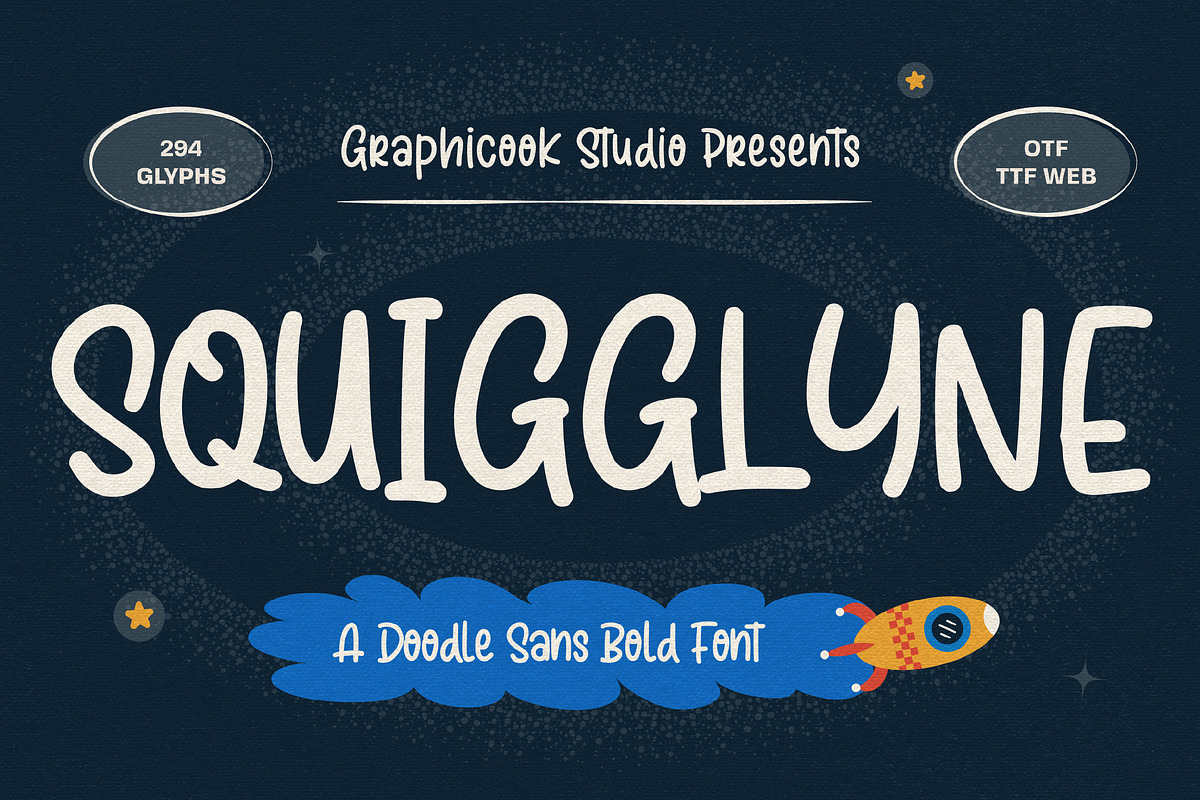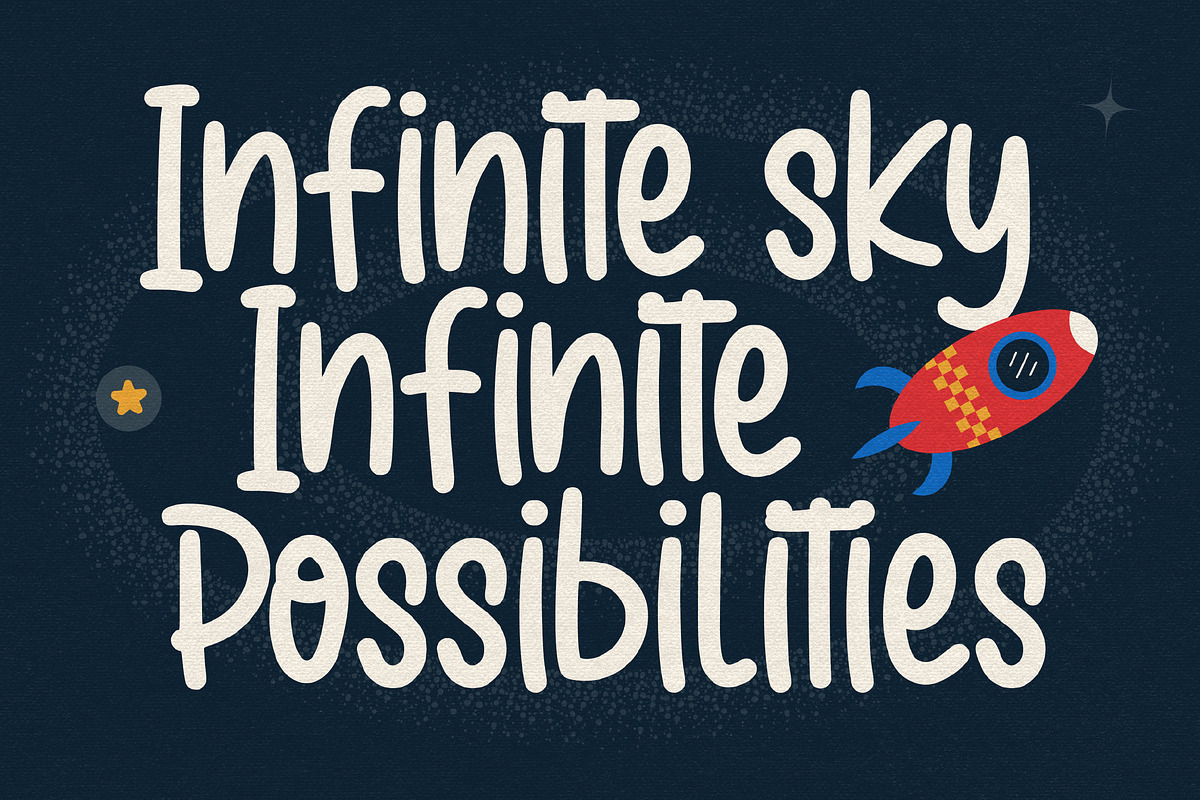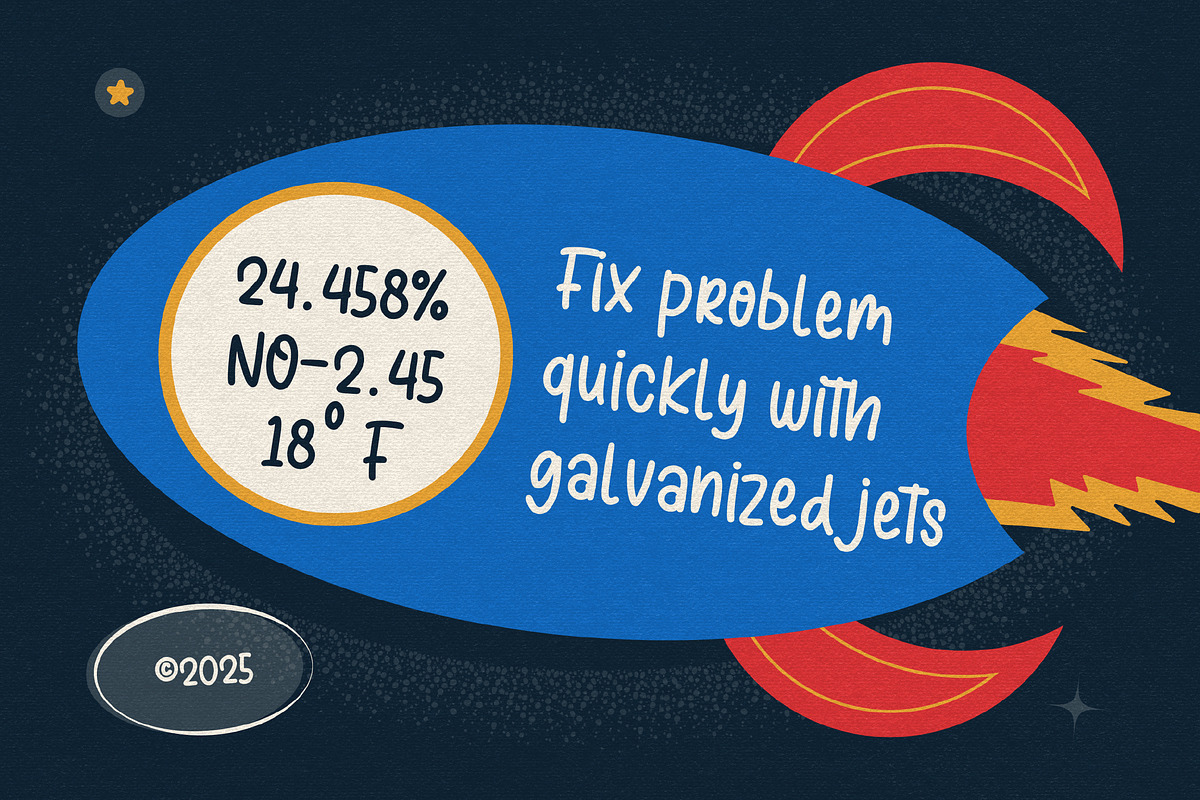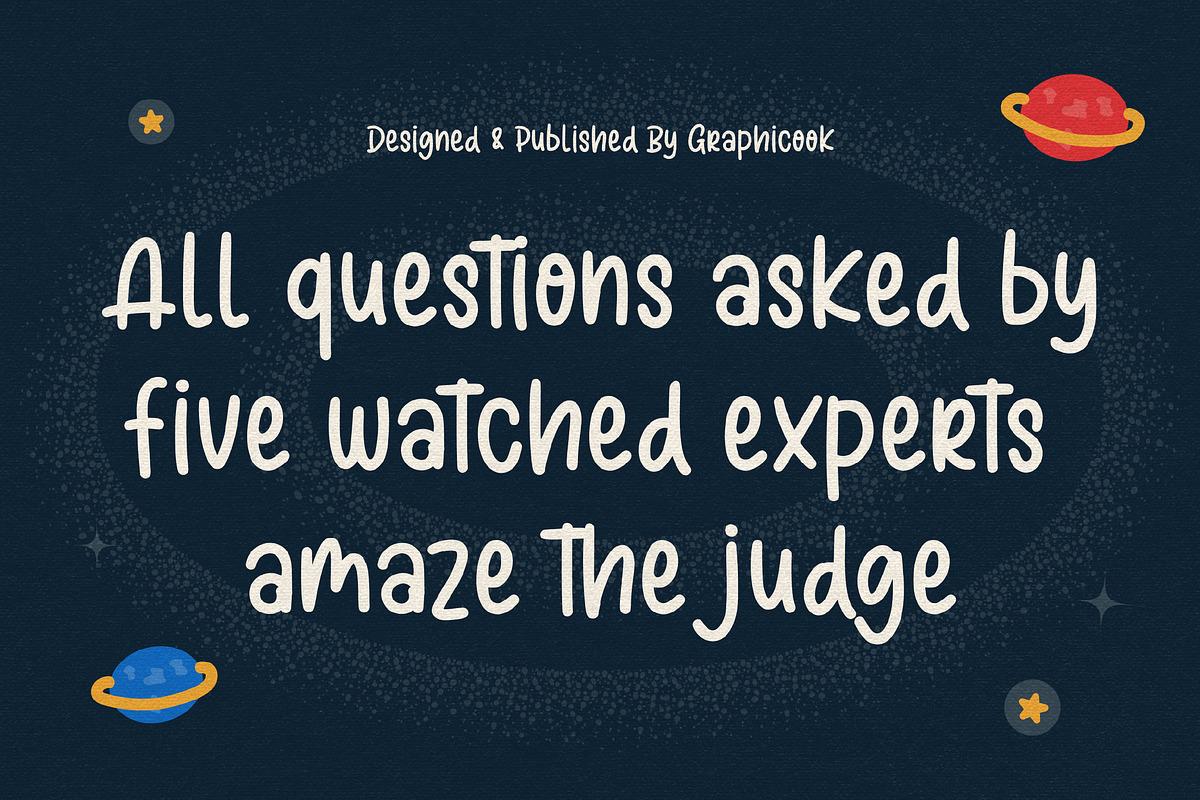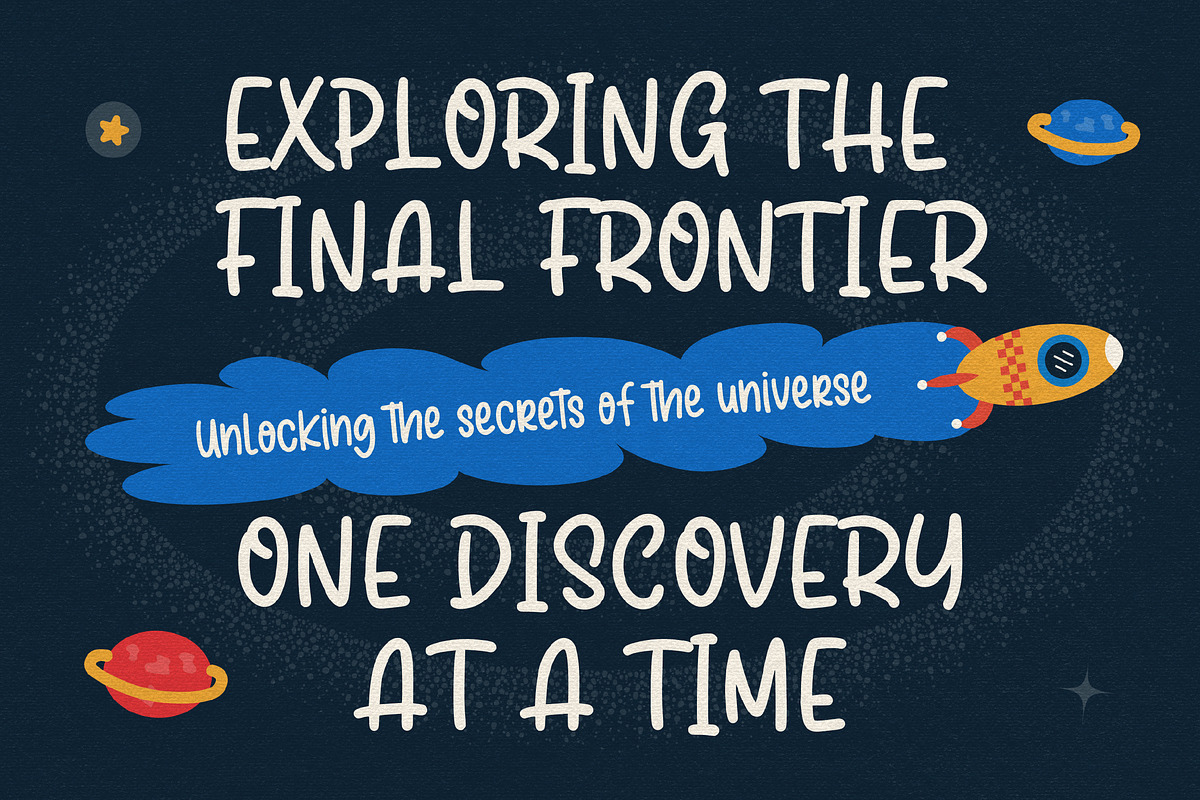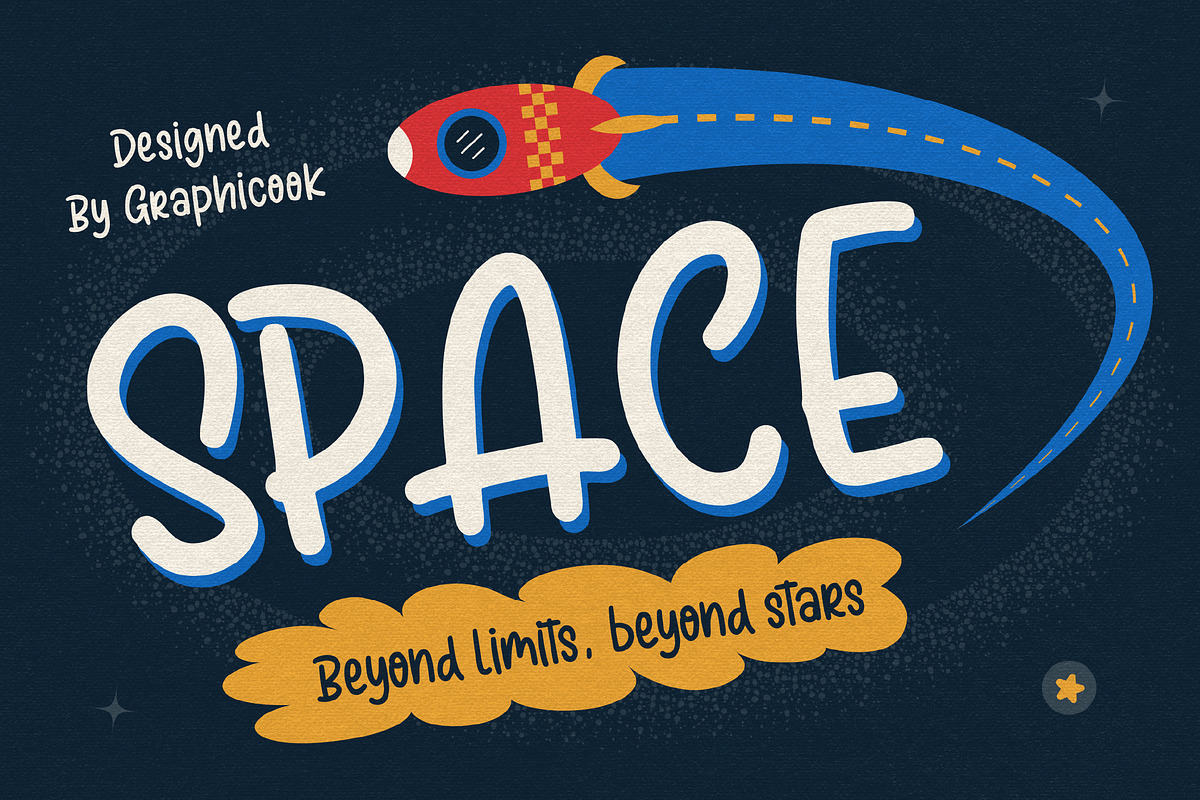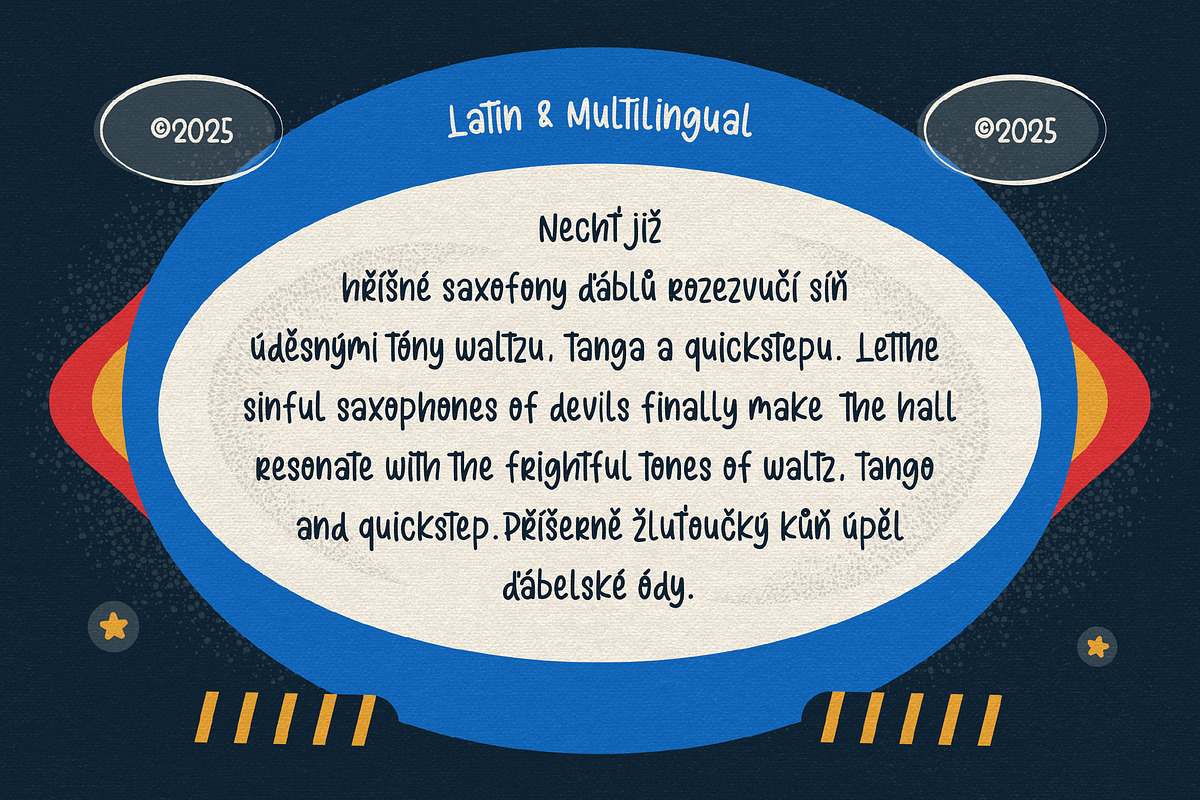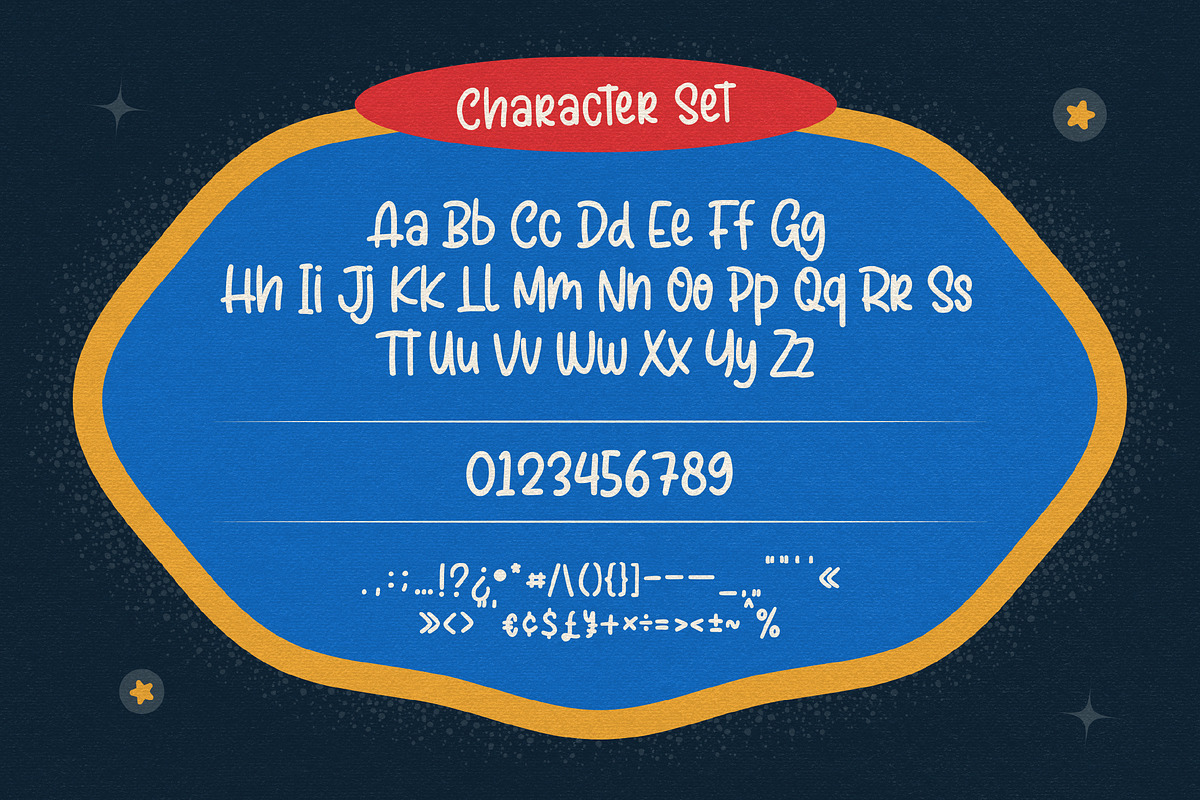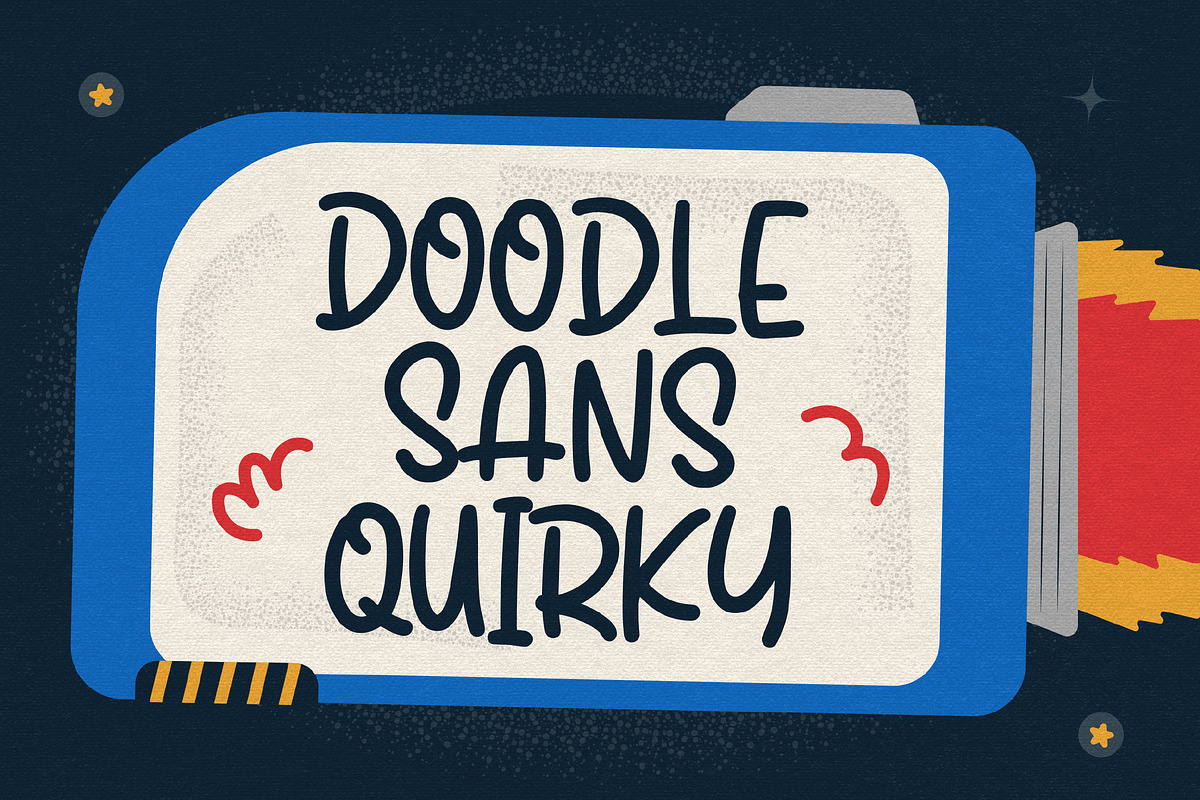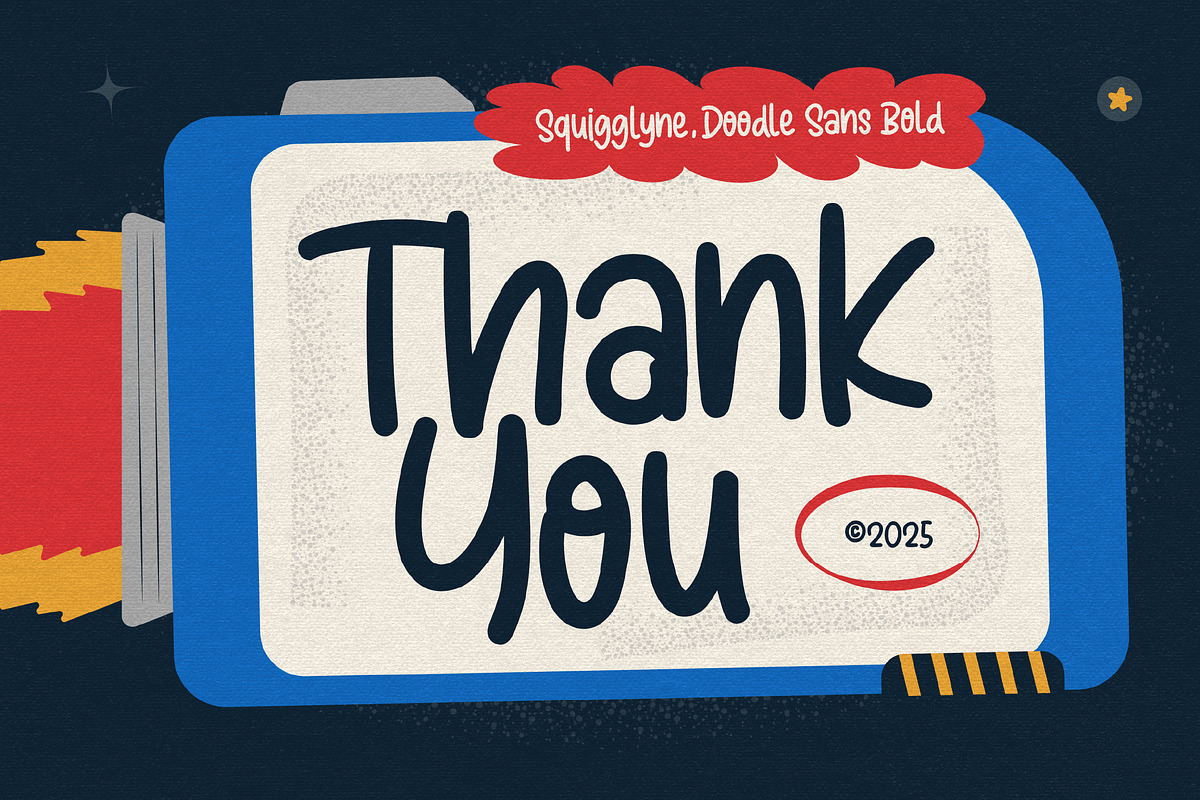
Squigglyne
Squigglyne is a sans-serif font with a handwritten, doodle-inspired style that feels expressive and fun. Great for educational materials or playful, lighthearted designs.
It is perfect for headlines, logotypes, magazines, packaging, quotes, movies, games, cover albums, book covers, and flyers, it's a perfect solution for creating eye-catching designs that stand out in any context.